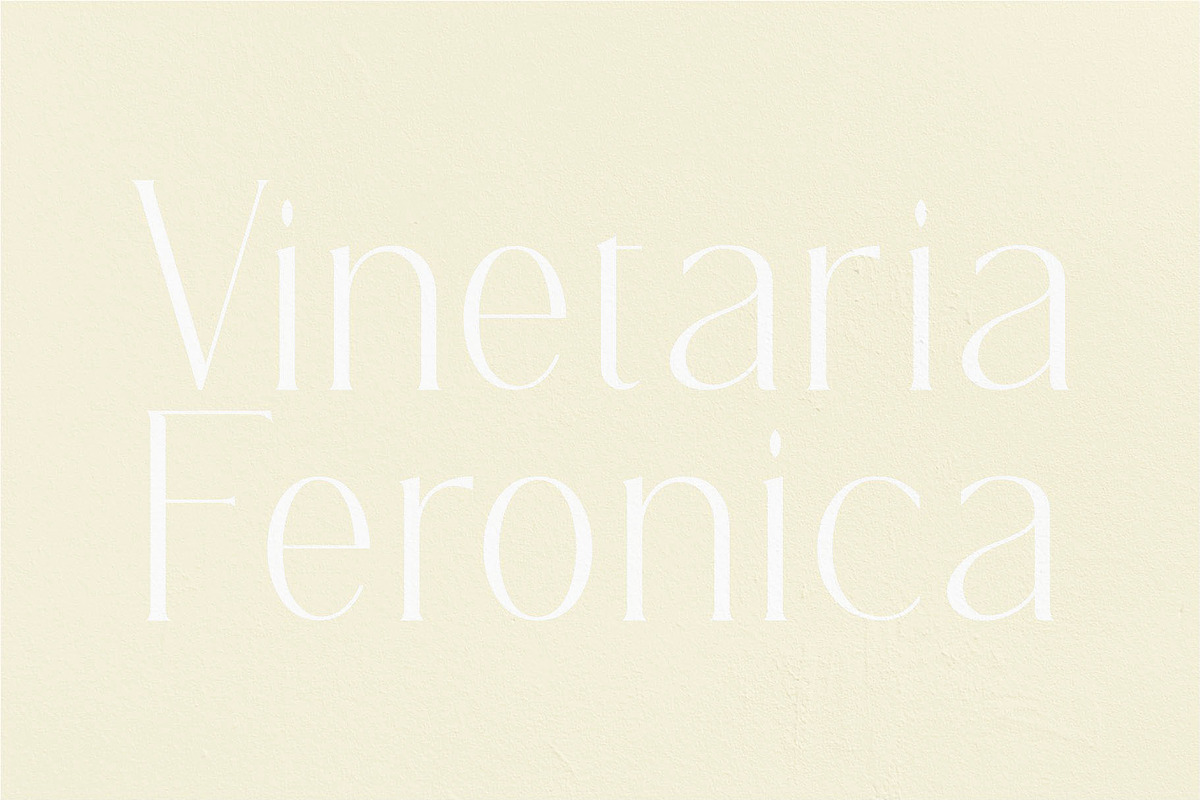
REGOZA//Typeface Slim Serif
REGOZA//Typeface Slim Serif. chic font takes the decoration out of deco but keeps those vintage curves. A perfect mix of new and old. This versatile font can be used for word-mark logos, mastheads, pull quotes & monograms.